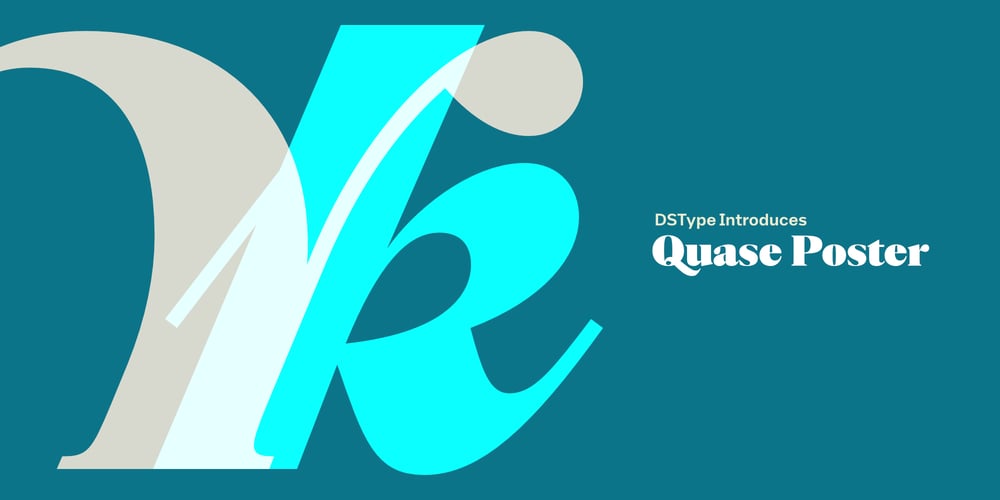
Quase Poster Font Family was designed by Dino dos Santos and published by Monotype. Quase Poster contains 3 styles and family package options. Quase is a very free interpretation of the types found in the “Specimen of Printing Types” by William Caslon from 1785. We didn’t want to follow any of the models introduced in the Specimens, but rather gather a series of typographic aspects that we found useful and interesting from the several sizes and styles available and then give them consistency and new proportions so they could fit our very own purpose. We wanted to start with Caslon and then transform it into an editorial typeface, hence the increase of the x-height and the radical reduction of the ascenders and descenders. Despite the Display, Headline and Text fonts we also wanted to make a single weight Poster version with, inspired by the mechanical script introduced in the Double-Pica Script, to be used in magazines or as a complementary display typeface.